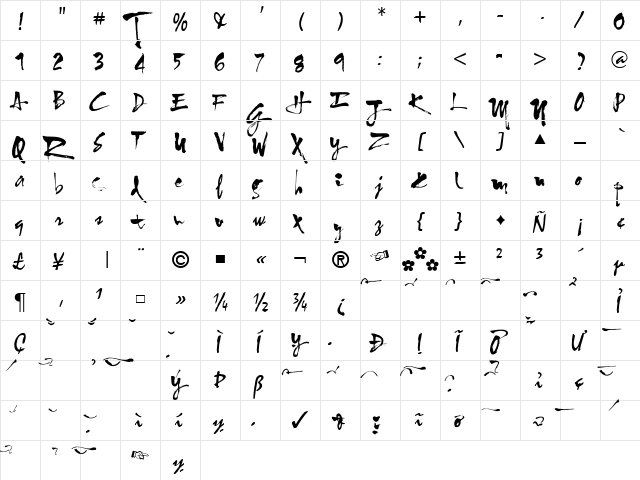
VNI-Trung Kien Normal
Design Context for VNI-Trung Kien Typeface
VNI-Trung Kien is a composed and adaptable typeface that performs quietly and consistently across a wide range of design contexts.